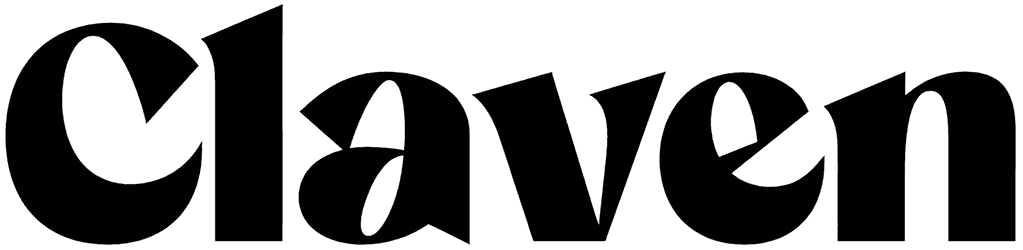
Claven Font
Some typefaces feel like a whisper, others like a declaration. Claven lands squarely in that bold middle ground where strength meets style. Its clean, structured letterforms and geometric rhythm give designs a sense of clarity and purpose, while subtle curves add a visual warmth that keeps everything from feeling too mechanical. That makes this font especially effective when you need typography to work, not just exist: headlines that matter, brand identities that need presence, posters that demand attention, and packaging that needs to communicate confidence at a glance.
Whether you’re working on tech branding, editorial spreads, lifestyle products, signage systems, or expressive headlines, this book cover font helps your words feel intentional without shouting for attention. Sometimes the best typography isn’t the loudest; it’s the one that makes every other design choice around it look smarter.